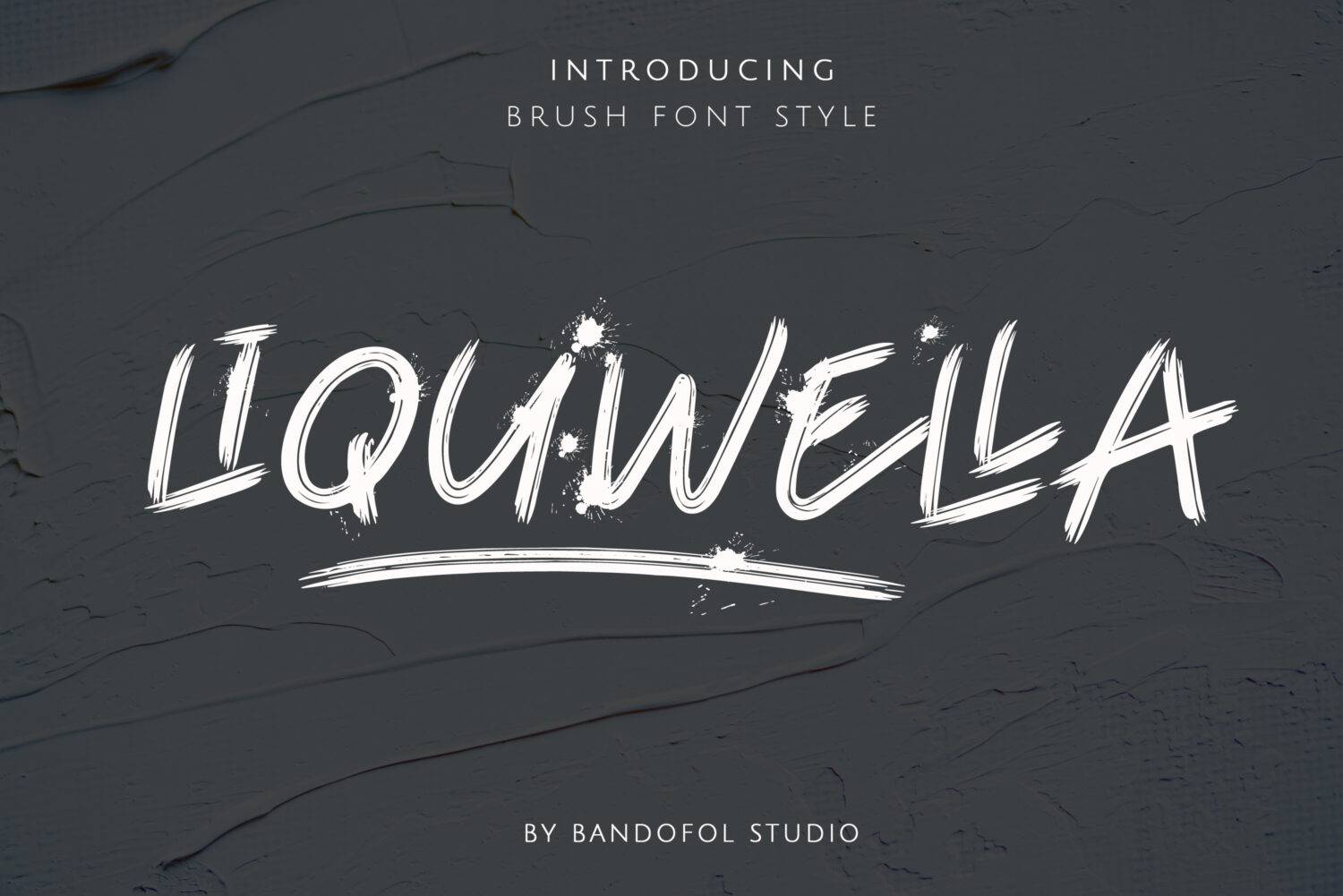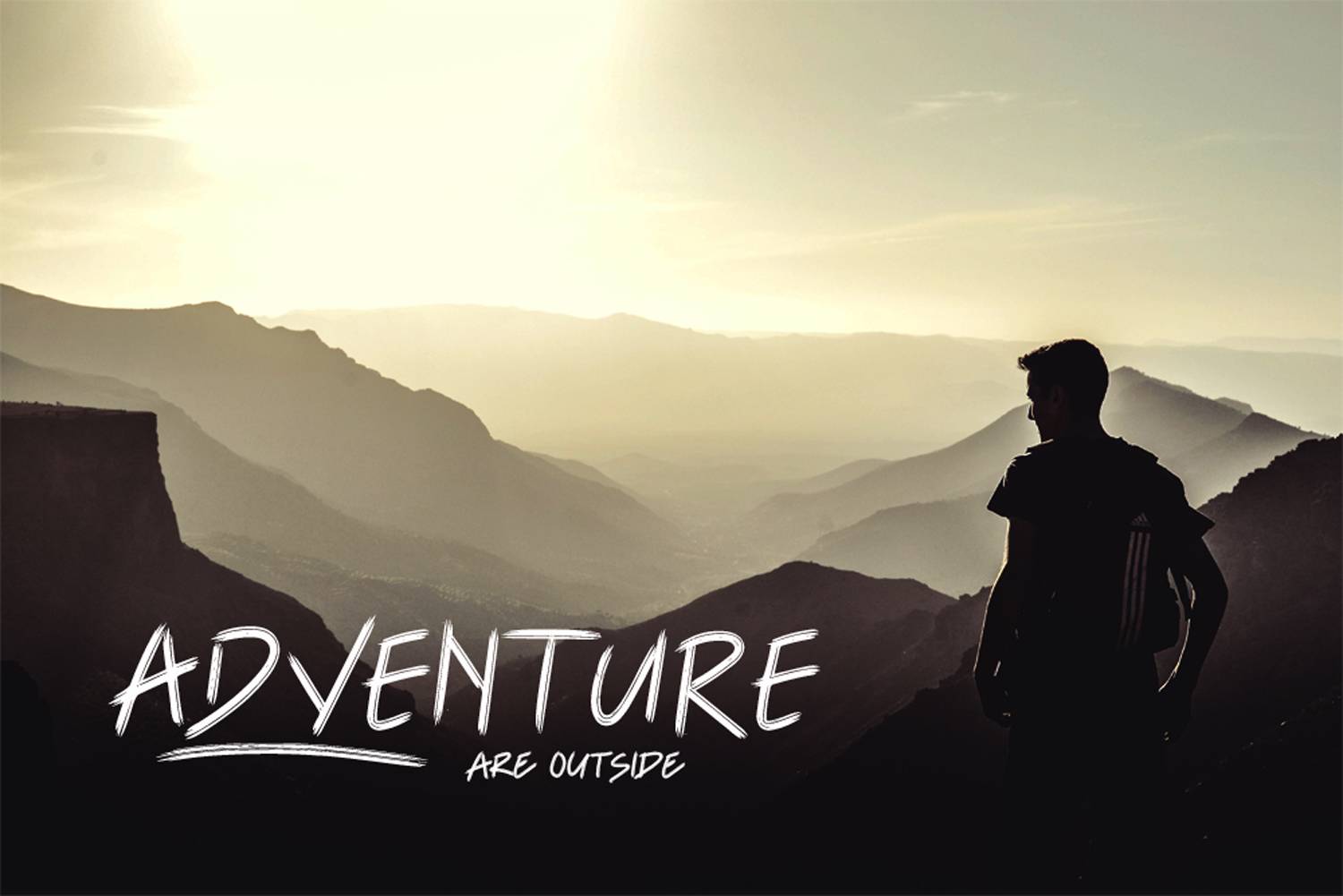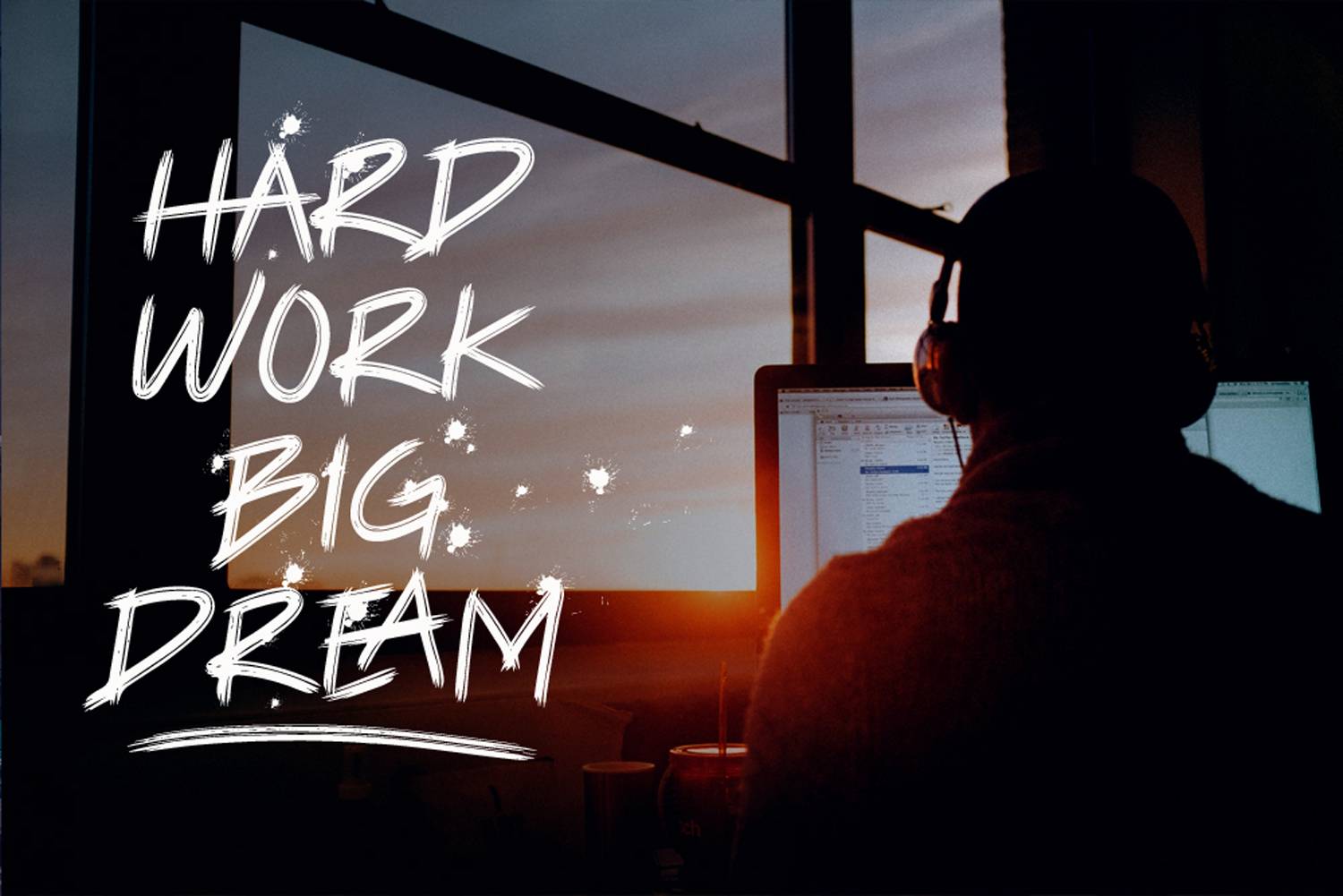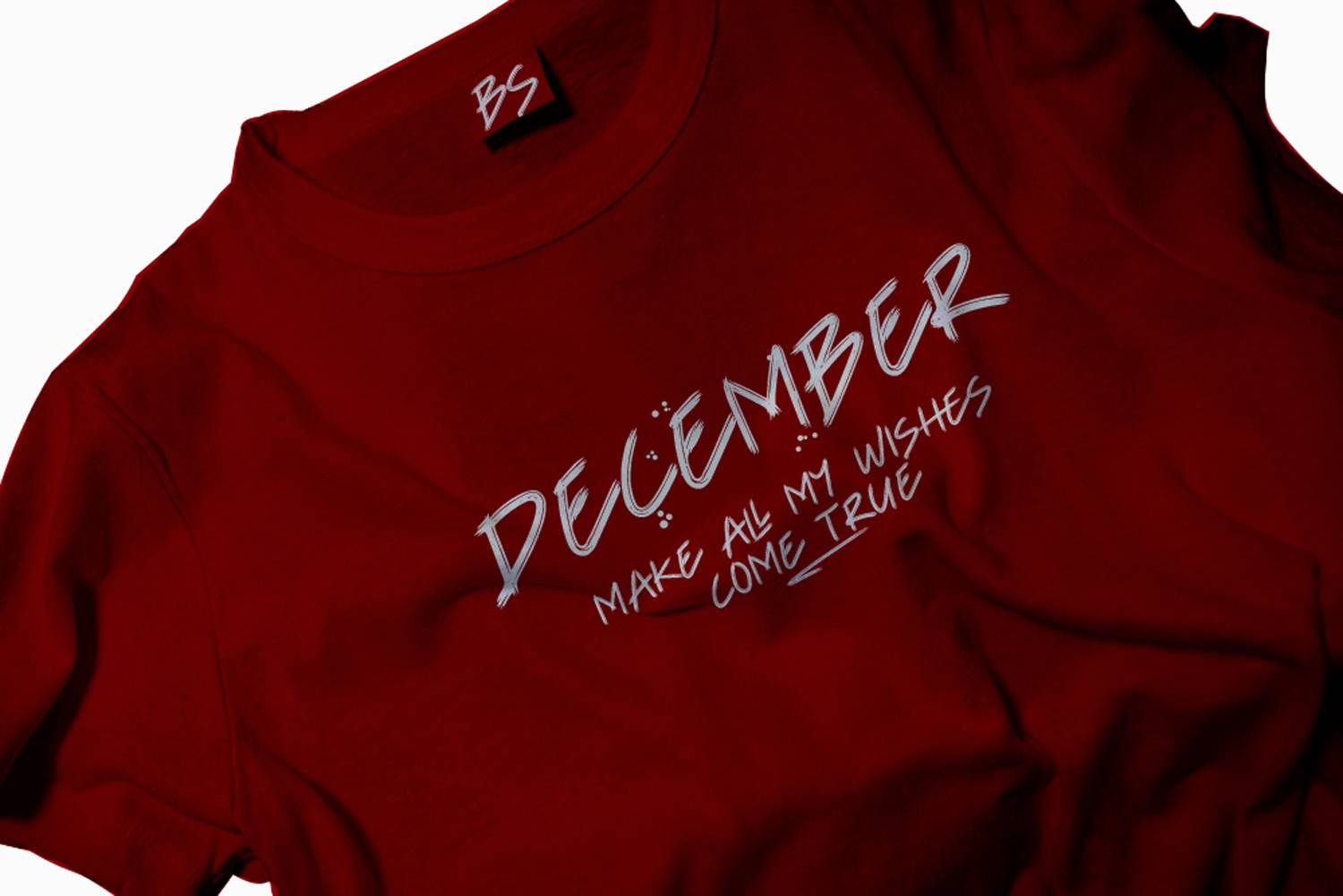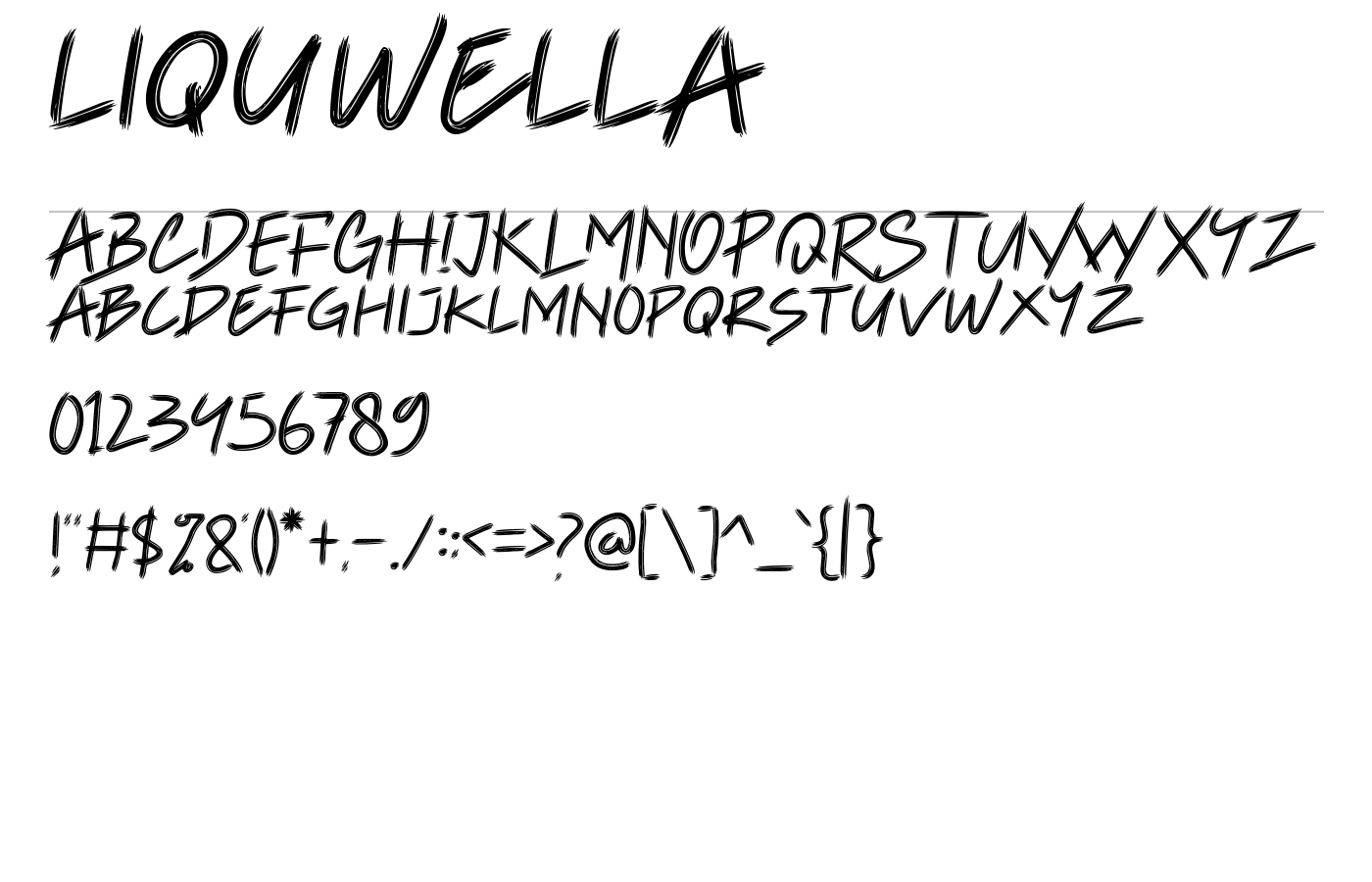
Liquwella is a dynamic, handwritten sans serif font with a playful and energetic vibe, characterized by its irregular, brush-like strokes and slightly condensed letterforms. It features an informal style with high contrast between thick and thin lines, making it ideal for creative and casual design projects, such as logos, posters, and branding that seek a personal, artistic touch. Its lively and expressive nature lends well to youth-oriented or creative industries where a unique, hand-crafted feel is desired.
Liquwella Font
About Liquwella Font